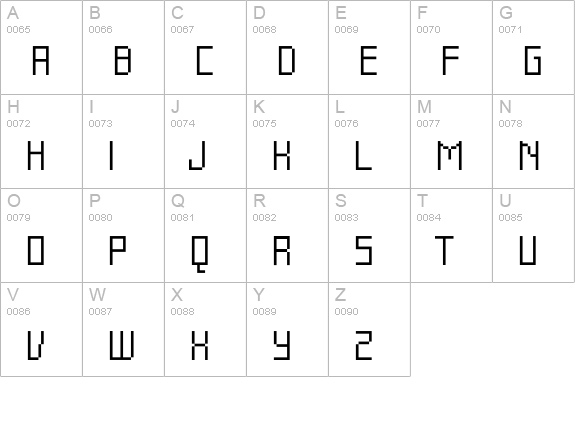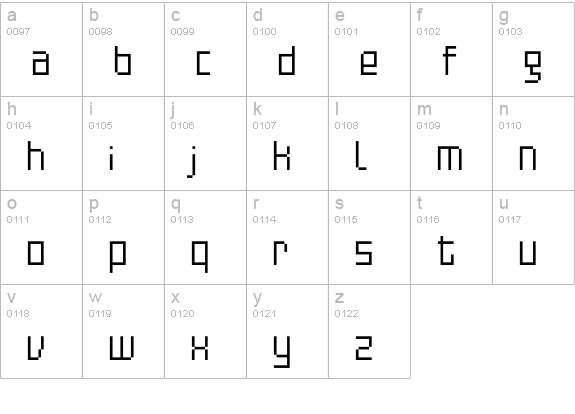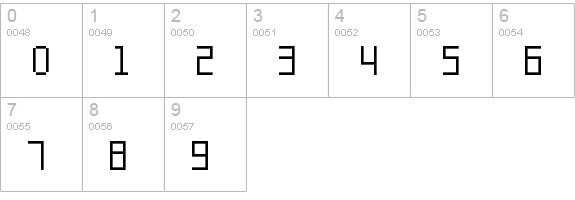
PFOnlineThreePro-Single Font Details
Introducing PFOnlineThreePro-Single, a versatile and elegant font perfect for a wide range of design projects. This sleek and modern typeface is designed to make your text stand out with its clean lines and professional appearance. PFOnlineThreePro-Single is ideal for branding, logos, posters, and more. Best of all, PFOnlineThreePro-Single is completely free to download at FontsMarket.com. Take advantage of this amazing opportunity to enhance your designs with this high-quality font at no cost. Don't miss out on the chance to elevate your projects with PFOnlineThreePro-Single today!